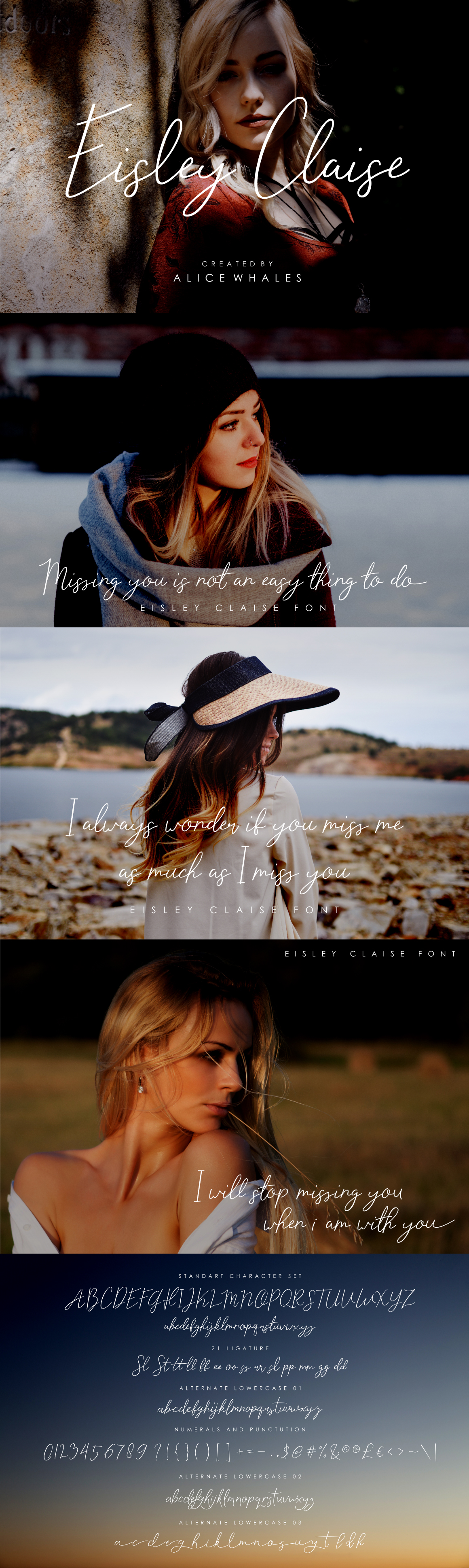
Eisley Claise - Handwriting Font is a contemporary pair of script and serif fonts created by Alice Whales. It is free-flowing, feminine, fashionable and friendly. Eisley Claise is perfect for fashion, e-commerce brands, trendy blogs, or any business that wants to appear classy and chic!